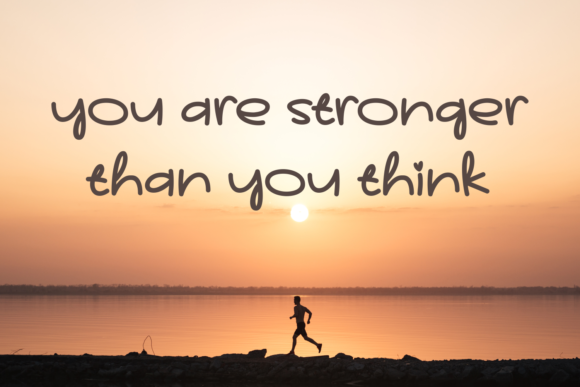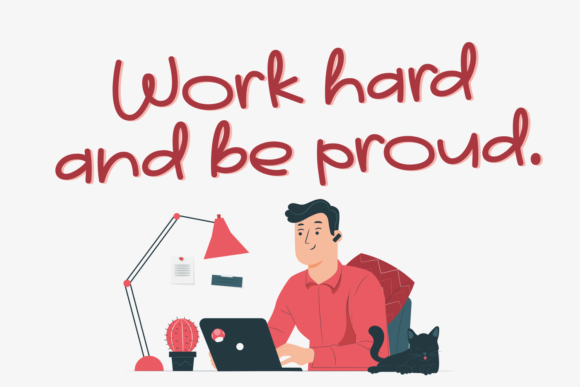
Morning Baby Font
db-ku.com - Script & Handwritten -- Morning Baby is a relaxed, whimsical and cute handwritten font. Add a touch of joy to each of your creations with this lovely font.